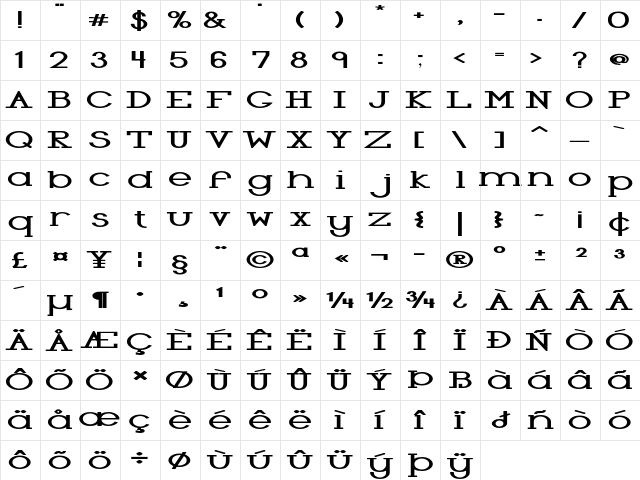
New York Print Extra-expanded Bold Free Font
New York Print Extra-expanded Bold
Style: Extra-expanded Bold
New York Print Family
New York Print Extra-expanded Bold
Design Context for New York Print
New York Print is a composed and adaptable typeface that performs quietly and consistently across a wide range of design contexts. Its bold stroke weight gives it real presence on the page.